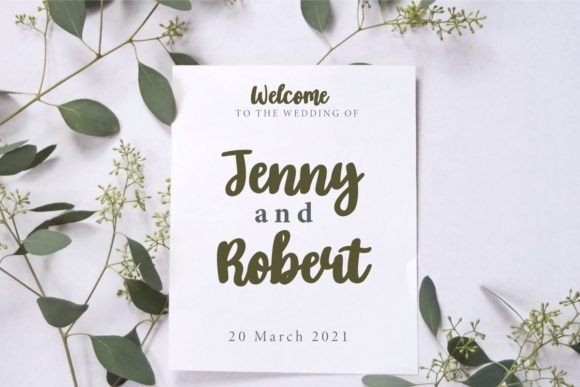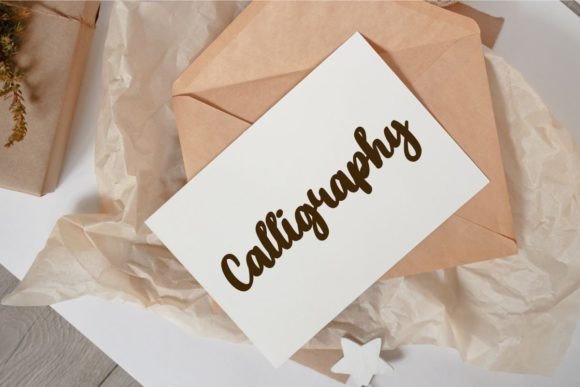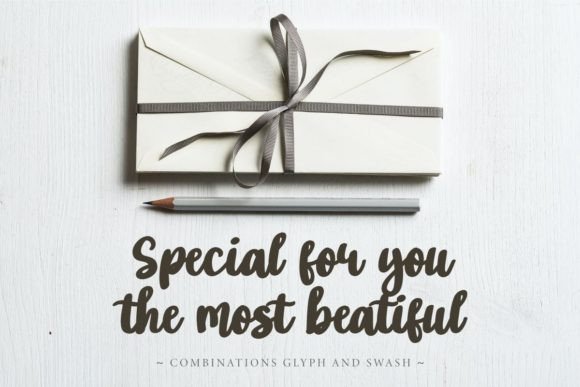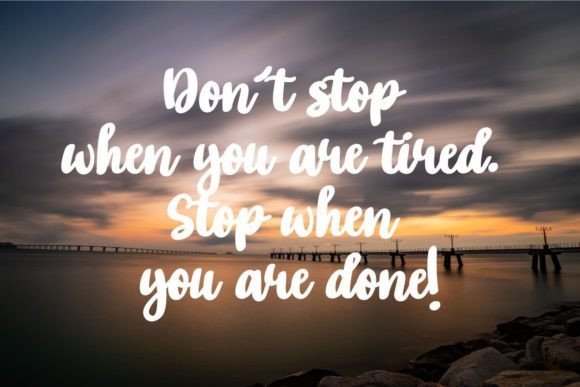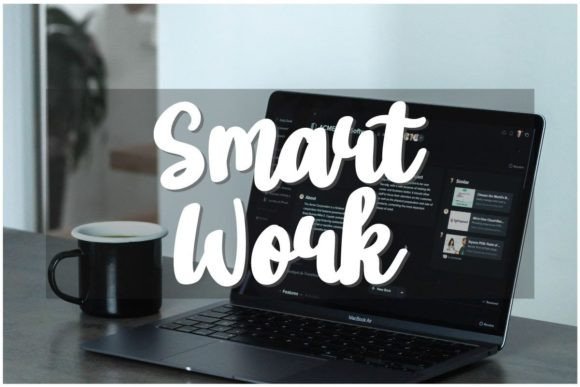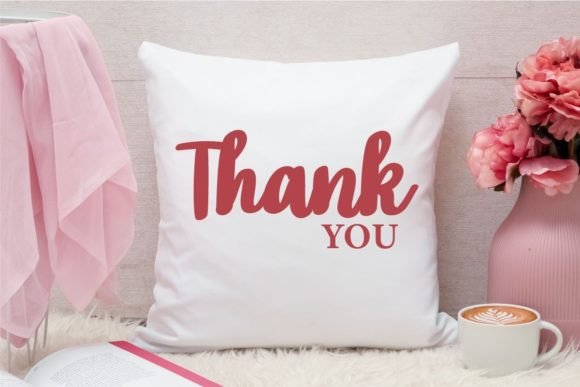
Gaymer Font: Elevate Your Designs with a Beautiful Handwritten Style
Are you a designer or crafter looking for a unique and elegant font to elevate your projects? Look no further than the Gaymer Font, a stunning handwritten font that is perfect for a wide range of applications. In this article, we’ll explore the features and benefits of the Gaymer Font, and show you how to use it to take your designs to the next level.
What is Gaymer Font?
Gaymer Font is a beautiful handwritten font that is designed to add a touch of elegance and sophistication to your projects. With its flowing script and delicate lines, this font is perfect for creating eye-catching displays, invitations, and marketing materials. Whether you’re a professional designer or a crafty DIY enthusiast, the Gaymer Font is a versatile and stylish choice that is sure to impress.
Features of Gaymer Font
The Gaymer Font has a number of features that make it an ideal choice for designers and crafters. Some of its key features include:
- Handwritten style: The Gaymer Font has a beautiful, handwritten style that adds a personal touch to your projects.
- Elegant and sophisticated: With its flowing script and delicate lines, this font is perfect for creating elegant and sophisticated designs.
- Versatile: The Gaymer Font can be used for a wide range of projects, from wall displays and wedding invitations to social media posts and product packaging.
- Easy to read: Despite its elegant style, the Gaymer Font is easy to read, making it perfect for use in body text as well as headings.
Uses for Gaymer Font
The Gaymer Font is a versatile font that can be used for a wide range of projects, including:
- Wall displays: Create eye-catching wall displays for your home or office with the Gaymer Font.
- Wedding invitations: Make your wedding invitations truly special with the elegant and sophisticated Gaymer Font.
- Social media posts: Use the Gaymer Font to add a touch of elegance to your social media posts and stand out from the crowd.
- Logos and branding: Create a unique and memorable logo for your business with the Gaymer Font.
- Advertisements: Use the Gaymer Font to create eye-catching advertisements that grab attention and drive results.
- Product packaging: Add a touch of elegance to your product packaging with the Gaymer Font.
- Product designs: Use the Gaymer Font to create beautiful and unique product designs that stand out from the crowd.
- Labels and stickers: Create custom labels and stickers with the Gaymer Font for a professional and polished look.
- Photography and watermarks: Use the Gaymer Font to add a touch of elegance to your photography and watermarks.
- Invitations and stationery: Create beautiful and unique invitations and stationery with the Gaymer Font.
Tips for Using Gaymer Font
Here are a few tips for using the Gaymer Font in your designs:
- Use it sparingly: While the Gaymer Font is beautiful, it can be overwhelming if used too much. Use it sparingly to add emphasis and create visual interest.
- Pair it with other fonts: The Gaymer Font pairs well with a variety of other fonts. Experiment with different pairings to find the one that works best for your project.
- Experiment with colors: The Gaymer Font looks great in a variety of colors. Experiment with different colors to find the one that works best for your project.
| Font Name | Gaymer Font |
| Author | Arief Indra Pratama |